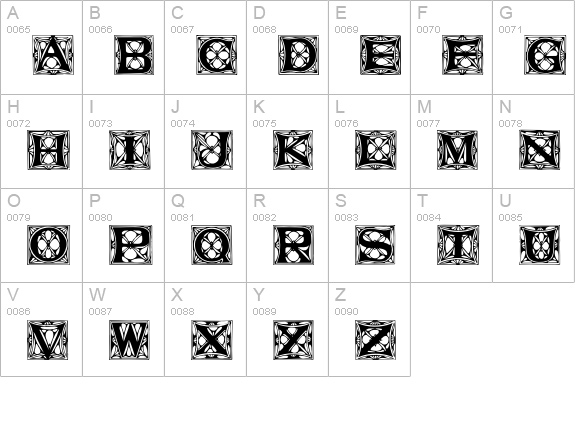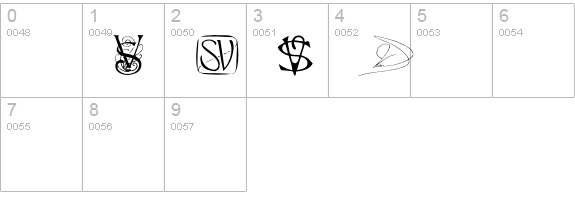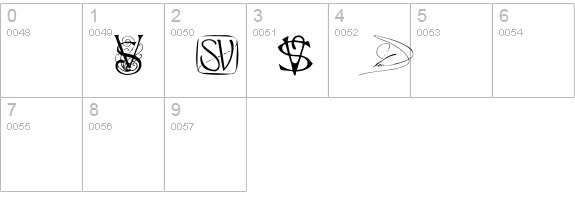
VarahCaps Font Details
VarahCaps is a stunning and elegant font that exudes sophistication and charm. Its unique design combines modern and classic elements, making it the perfect choice for a wide range of projects. Whether you're creating invitations, logos, or headlines, VarahCaps will add a touch of elegance and professionalism to your designs. This font features beautifully crafted uppercase letters that are meticulously detailed, with delicate curves and intricate serifs. Each letter has been expertly balanced to create a harmonious and visually appealing composition. VarahCaps is versatile and can be used in both formal and informal settings, making it a valuable asset for designers and creatives alike. One of the most remarkable aspects of VarahCaps is that it is available for free download at FontsMarket.com. This means that you can easily access and use this stunning font without any cost. It allows you to enhance your designs without the need to worry about budget constraints, making it an excellent choice for both personal and commercial projects. VarahCaps has been carefully designed with legibility in mind, ensuring that your messages are effortlessly conveyed to your audience. The font's clean and crisp lines make it easy to read, even at smaller sizes or from a distance. This makes VarahCaps an ideal choice for a variety of applications, including signage, labels, and printed materials. In addition to its aesthetic appeal and ease of use, VarahCaps also offers a wide range of language support, allowing you to create designs in different languages and reach a global audience. Its extensive character set includes accented letters, punctuation marks, and numerals, ensuring that you have all the tools you need to bring your creative vision to life. With VarahCaps, you have the opportunity to elevate your designs to new heights. Its timeless elegance and versatility make it a must-have font for any designer or creative professional. And with the added benefit of being freely available for download at FontsMarket.com, there's no reason not to add VarahCaps to your font collection today.